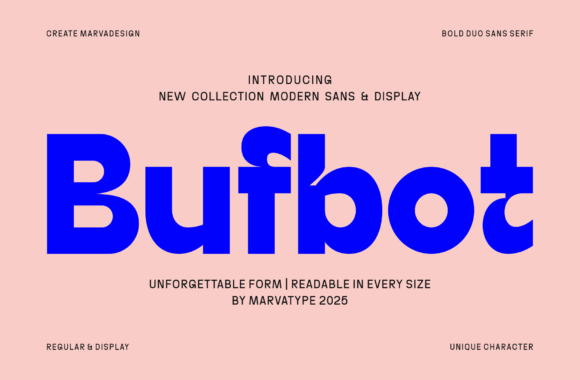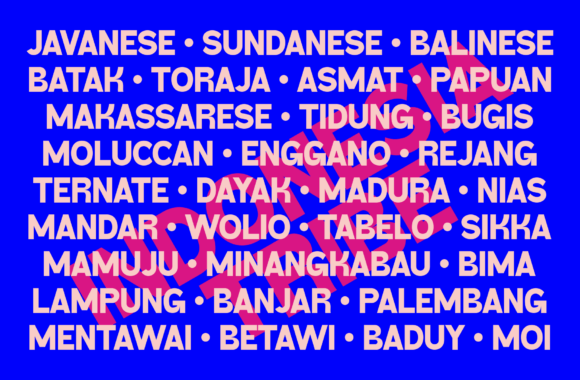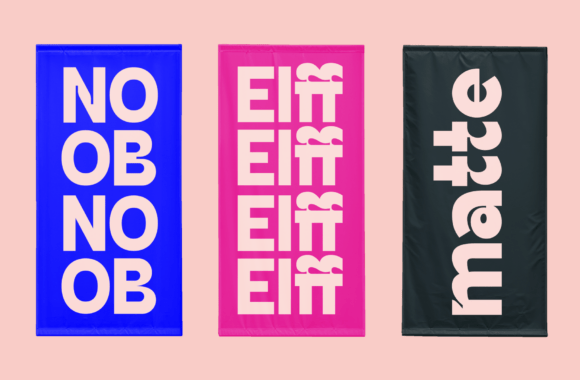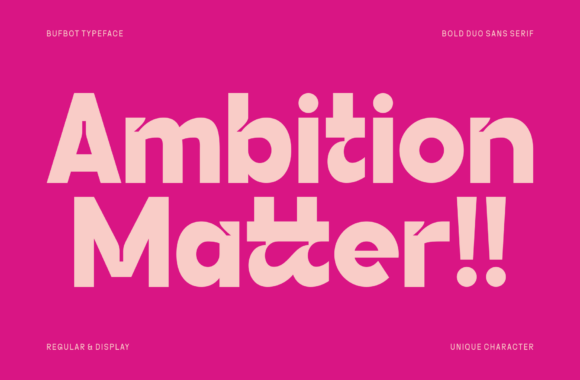
Bufbot Font: A Bold, Modern Sans Serif for Logo Design & Branding
About the Bufbot Font
The Bufbot Font is here to transform your projects with its distinctive character and style. Bufbot is a bold, modern sans serif typeface that merges a clean, structured form with unique, display-style character. Crafted as a duo Regular and Display this font offers high versatility, designed to stand out while maintaining exceptional readability across sizes. Its rounded yet geometric construction brings a futuristic flair, making it ideal for branding, editorial headlines, posters, and digital design. Each letterform is infused with distinct visual cues that ensure memorability and personality without sacrificing clarity. Bufbot is more than just a typeface it’s a bold design statement made for modern visual communication.